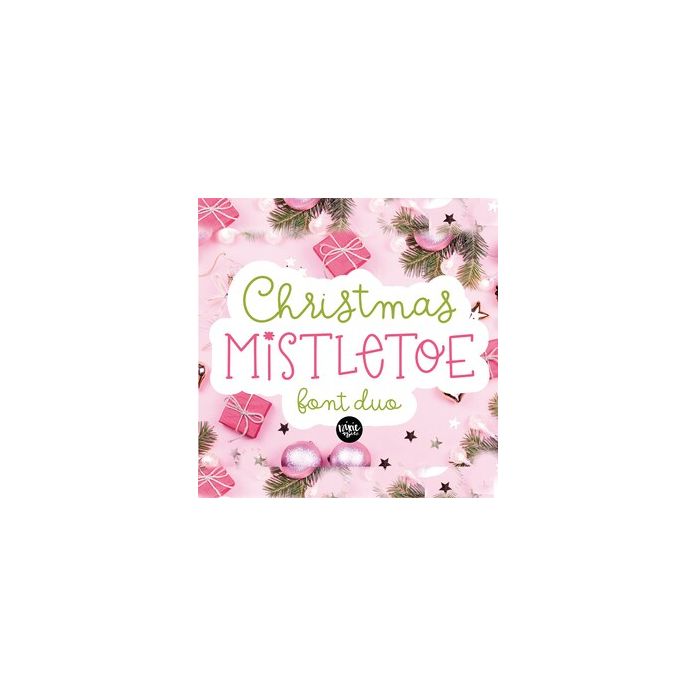
christmas mistletoe chrstmas font duo
Christmas Mistletoe is a playful Christmas font duo. Perfect for Christmas parties and decor. Total Glyph Count: 238